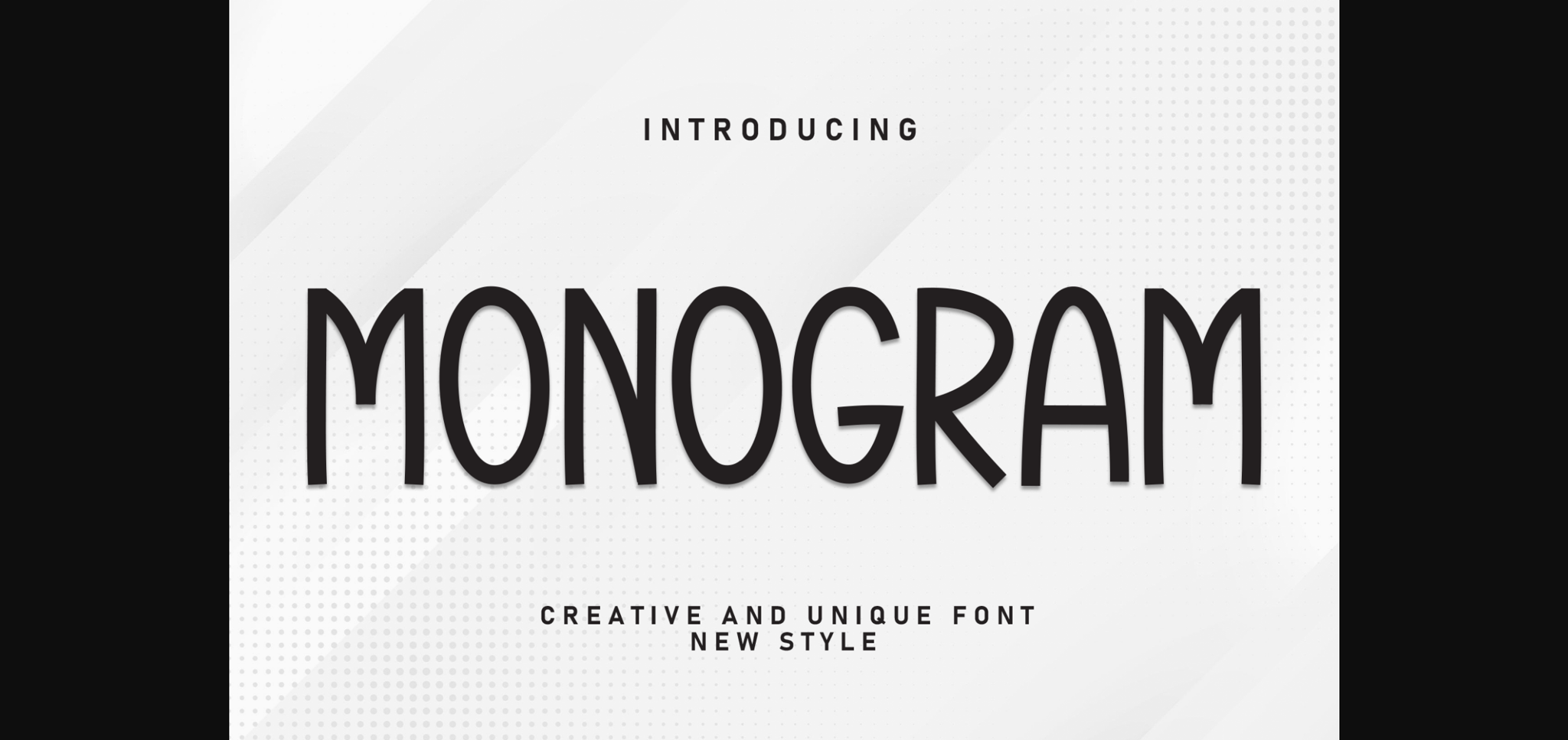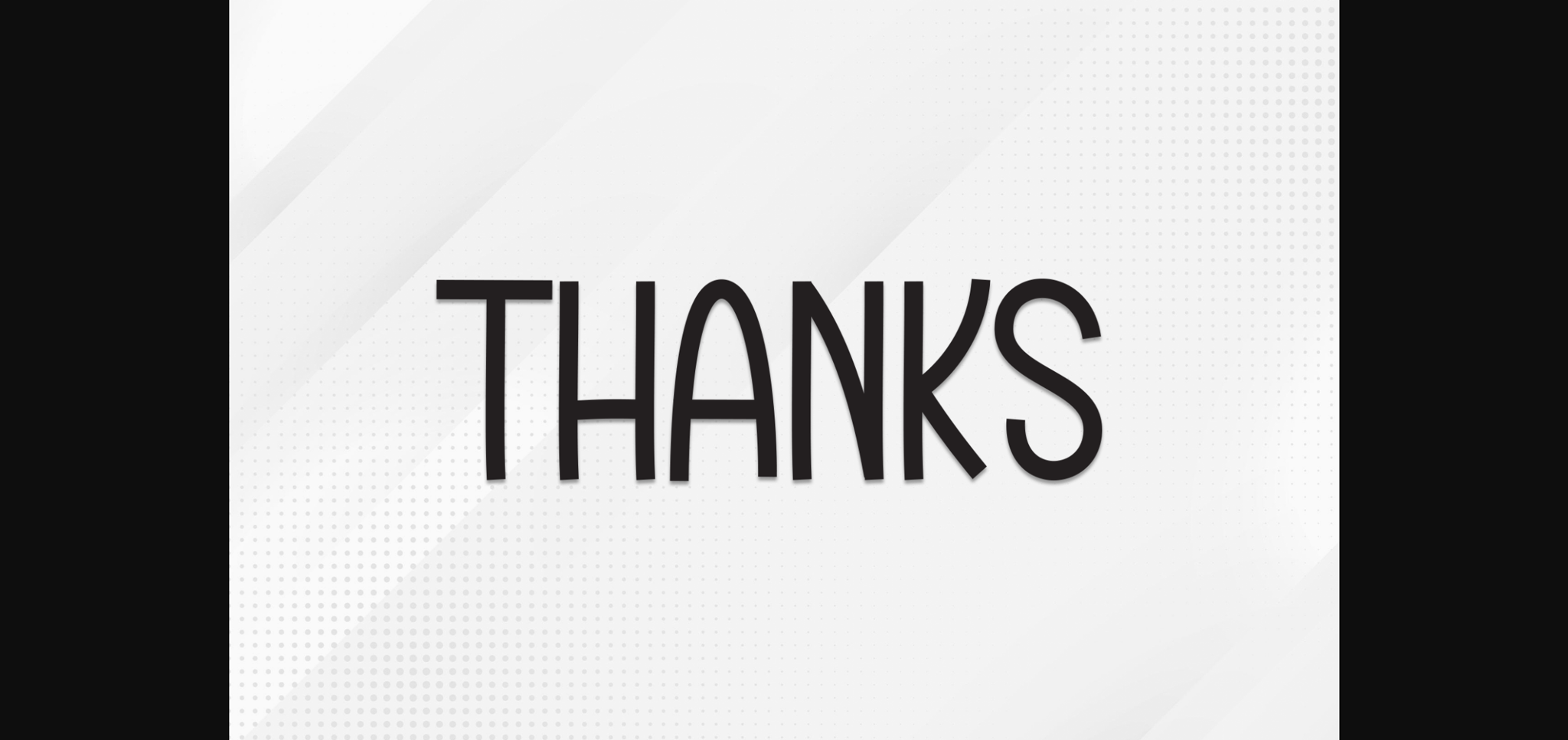
About Monogram Font
Introducing a charming and approachable sans-serif font that exudes sweetness and friendliness. Perfectly suited for crafting delightful wedding invitations or endearing note cards, this font breathes a playful energy into any design. Its cute and entertaining appeal is sure to imbue your creative works with a uniquely fun touch!